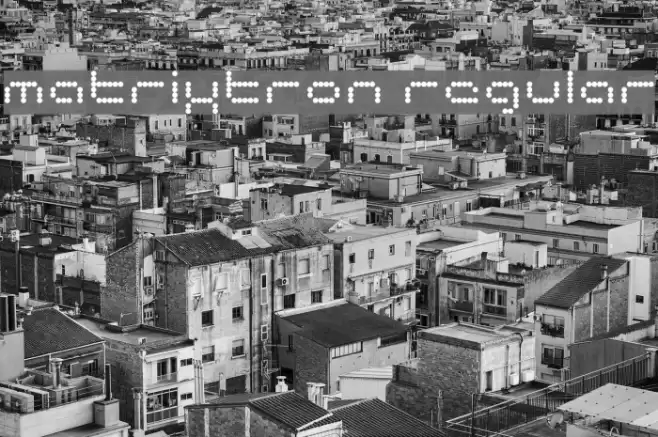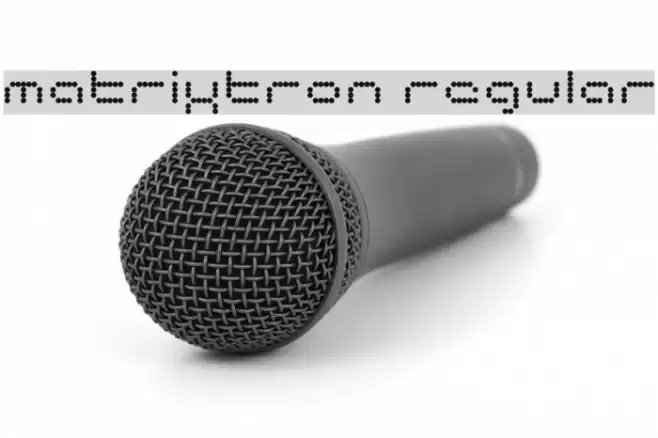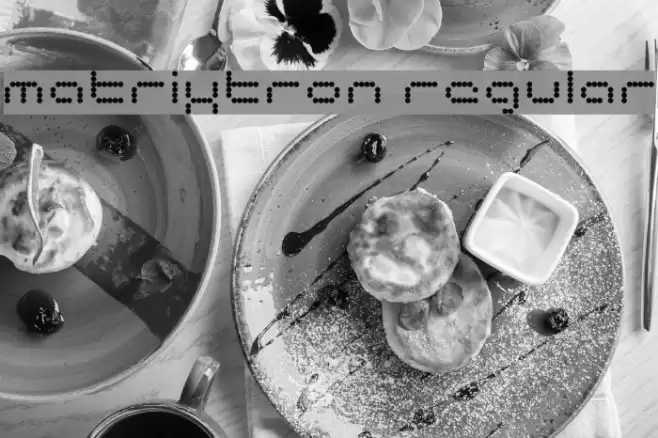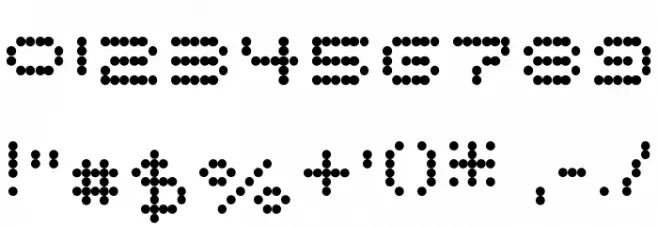
matrixtron Regular Font
matrixtron Regular Description
This font features a unique dot matrix design, where each character is composed of a series of evenly spaced dots. The style is reminiscent of digital displays and retro technology, offering a futuristic yet nostalgic feel. The uniformity of the dots creates a consistent texture across all characters, making it highly recognizable. The font maintains a balanced proportion, ensuring readability despite its unconventional appearance. It is particularly effective in conveying a sense of modernity and innovation, while also appealing to those with an affinity for vintage digital aesthetics.
A dot matrix font with a futuristic and retro digital display style from Futuristic fonts.
- Proposed Projects: Ideal for digital-themed projects, tech-related branding, retro gaming interfaces, and futuristic design elements.
- Overall Style: Modern, Vintage
- Use Case: Logos, Headlines, Digital displays